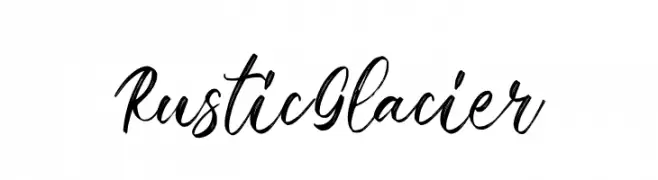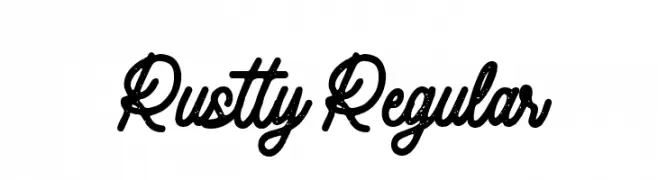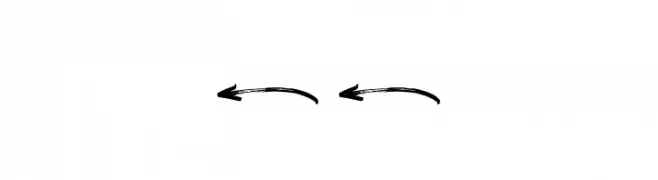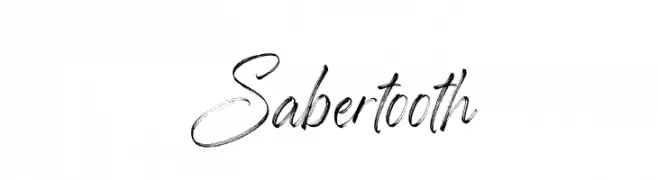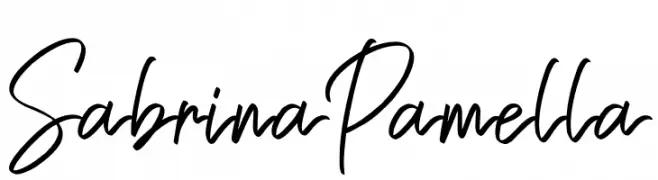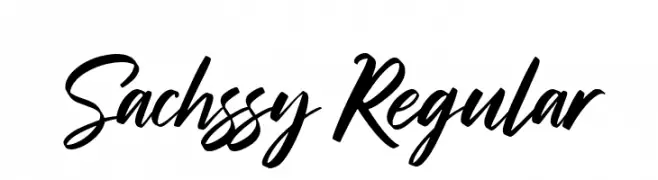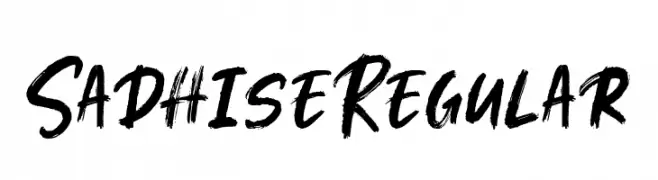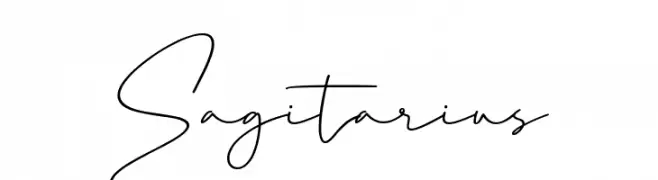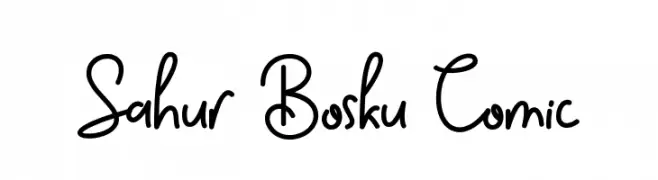
A cursive, handwritten font with elegant, flowing strokes.
A bold, dynamic script font with flowing, cursive letters and consistent thick strokes.
An elegant script font with ornate, flowing characters and a classic appeal.
A dynamic, expressive handwritten font with brush-like strokes.
Hand-drawn, textured arrow swashes with a sketchy look.
A fluid, elegant handwritten script font with a natural flow.
A bold and fluid script font with interconnected letters and a modern flair.
A bold, brush script font with dynamic, hand-painted strokes.
A delicate, elegant handwritten script with fluid strokes.
A playful, handwritten font with lively, interconnected strokes and a whimsical style.